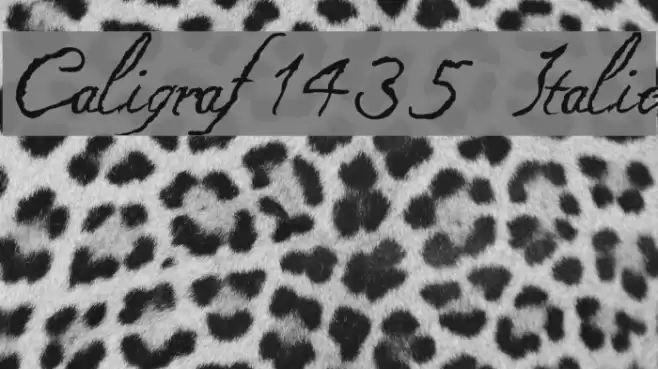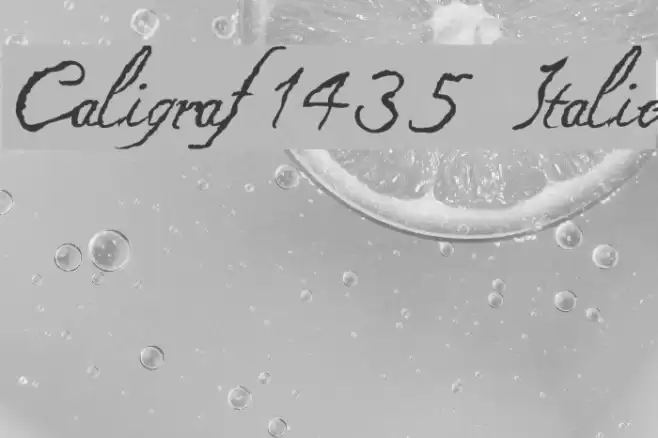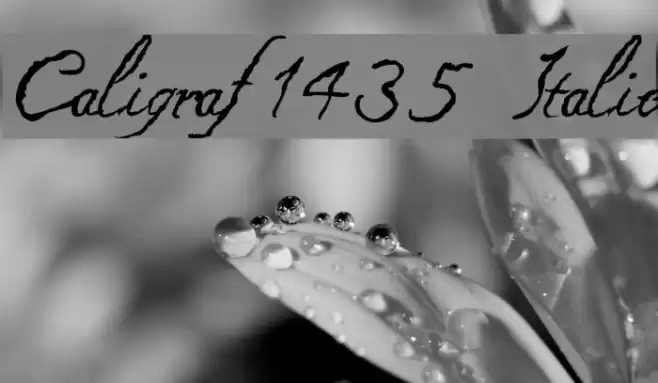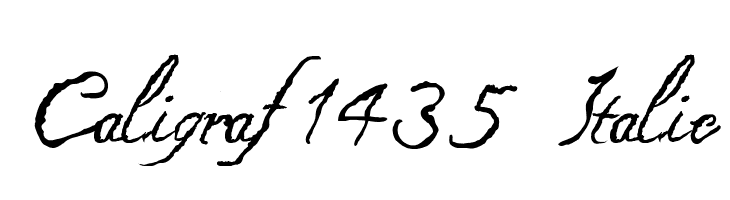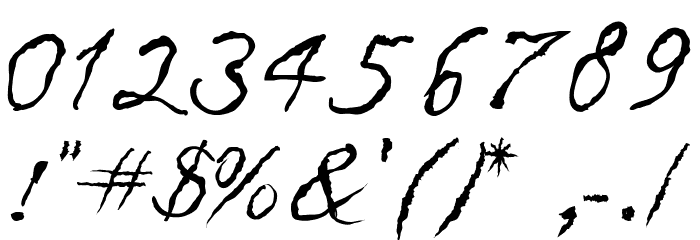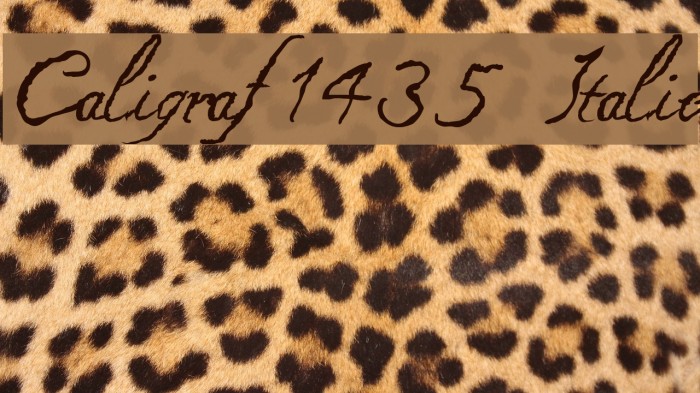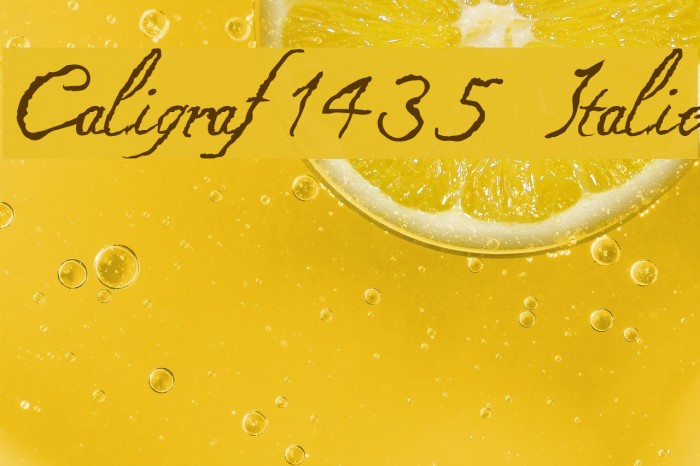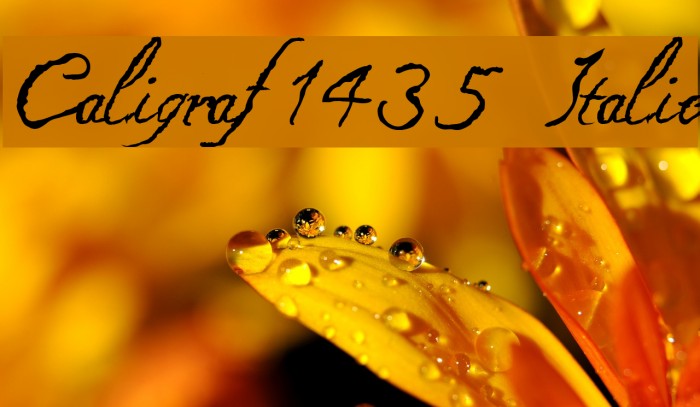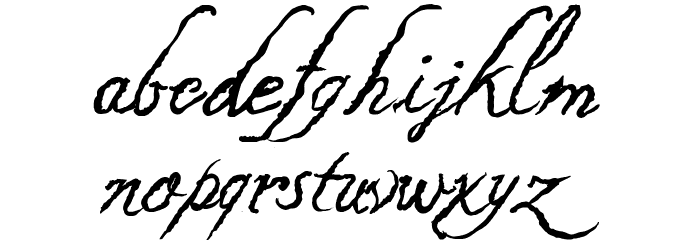
Caligraf 1435 Italic Font
Caligraf 1435 Italic Description
This font features an elegant, flowing script style that mimics the fluidity of handwritten calligraphy. The characters are intricately designed with varying stroke thickness, giving them a dynamic and artistic appearance. The uppercase letters are bold and prominent, while the lowercase letters maintain a graceful, cursive form. Numbers and special characters are crafted with the same attention to detail, ensuring a cohesive look across all elements. The overall aesthetic is reminiscent of traditional calligraphy, making it suitable for projects that require a touch of sophistication and elegance.
An elegant, flowing script font with a calligraphic style from Uncategorized fonts.
- Proposed Projects: Ideal for wedding invitations, greeting cards, elegant branding, and artistic projects.
- Overall Style: Classic
- Use Case: Logos, Invitations, Decorative text